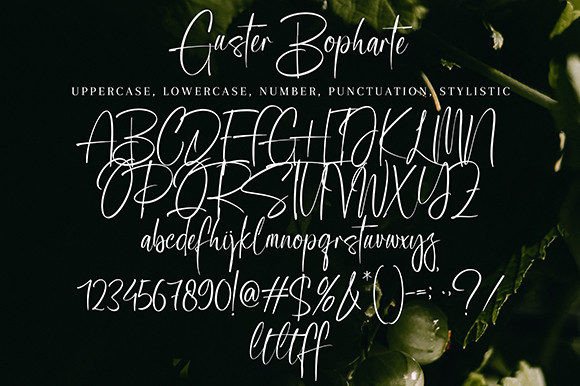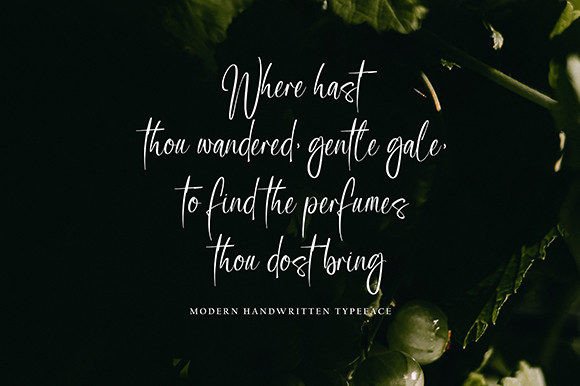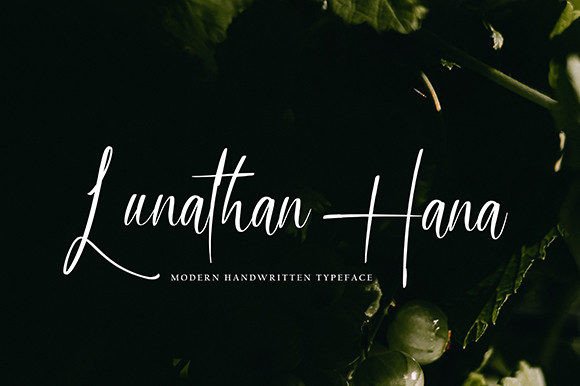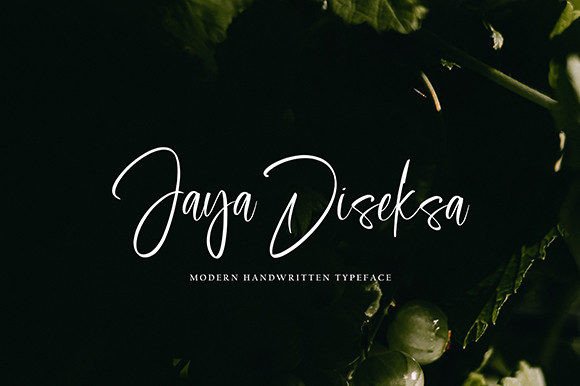
About Guster Bopharte Font
Introducing “Guster Bopharte” – Your Delicate and Elegantly Flowing Handwritten Font!
“Guster Bopharte” is not just a font; it’s a masterpiece of delicate elegance, featuring beautifully balanced characters that exude grace and sophistication. This handwritten font is a true gem, harmoniously complementing a vast array of design projects. When you incorporate “Guster Bopharte” into your most creative ideas, you’ll witness the magic as it brings them to life with its timeless charm!
With “Guster Bopharte,” you get a font that flows gracefully and embodies a sense of beauty in every stroke. Its well-balanced design makes it a versatile choice for a wide range of design applications.
Imagine using “Guster Bopharte” to craft enchanting wedding invitations, design sophisticated branding materials, create captivating social media graphics, or even to give your website a touch of refined elegance. This font elevates your content, making it unforgettable and leaving a lasting impression.
Whether you’re an experienced designer looking to infuse elegance into your projects or an individual with a flair for creativity, “Guster Bopharte” is your ideal font for enhancing your work with a touch of timeless beauty.